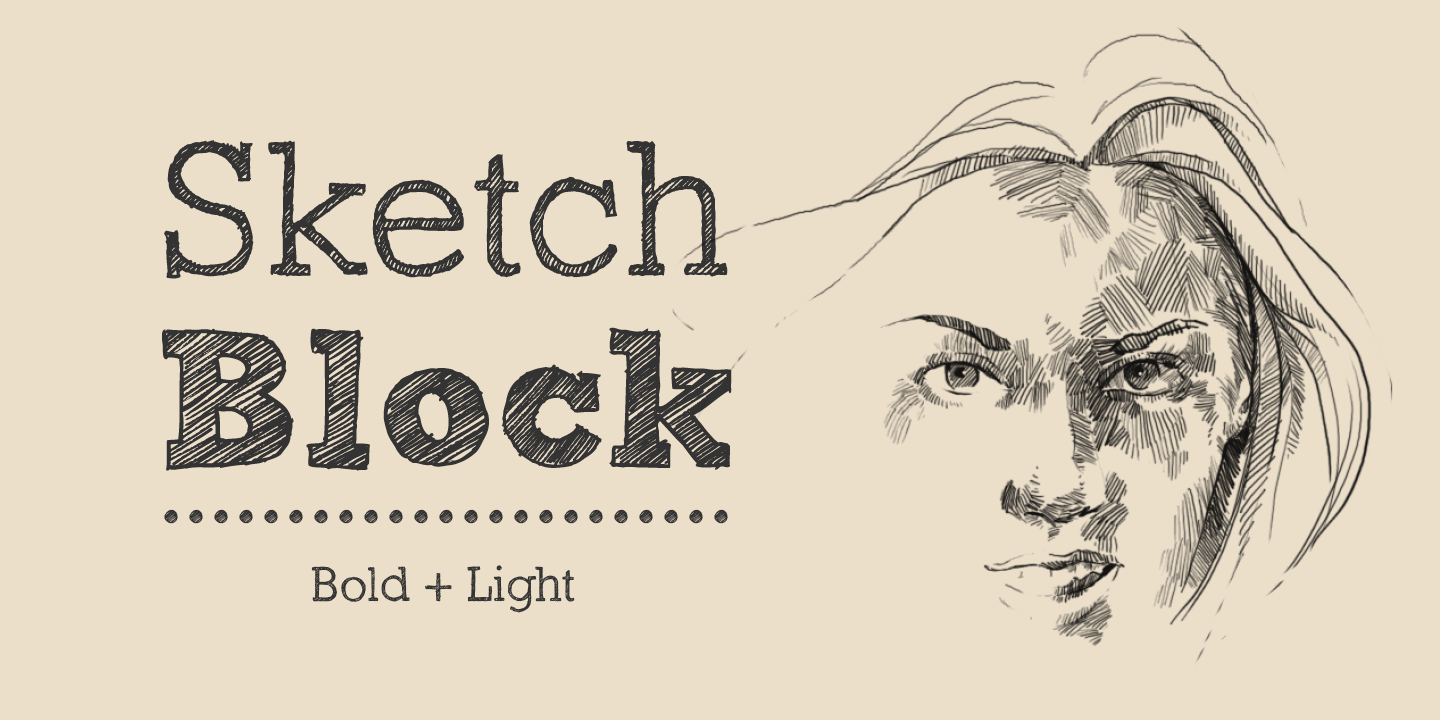
Sketch Block Font is perfect for artistic portfolio designs, creative agency branding, hand-drawn illustration projects, artisanal craft labels, design studio signage, creative workshop materials, architectural concept presentations, artistic event posters, and any design project that requires authentic handcrafted character and creative authenticity.
What makes Sketch Block Font so exciting is its remarkable ability to capture the raw creative energy and authentic artistic process through letterforms that feel genuinely hand-sketched by talented artists in their creative flow. This font embodies the essence of artistic expression with its organic, hand-drawn character shapes that preserve the spontaneity and human touch of traditional sketching techniques. The carefully crafted characters feature authentic drawing variations and artistic imperfections that communicate creativity, originality, and genuine artistic passion, creating the perfect typography solution for projects that celebrate the beauty of handmade artistry and creative authenticity.
The Sketch Block Font family typically includes regular weight variations with comprehensive character sets featuring uppercase and lowercase letters, numerals, punctuation marks, and artistic design elements. Some versions may offer additional stylistic alternates and hand-drawn variations that provide designers with creative options for building authentic, artisanal layouts with genuine artistic appeal and handcrafted sophistication.
Sketch Block Font Free Download has become increasingly popular among artists, creative professionals, and design studios who specialize in handcrafted, authentic visual communications. This distinctive typeface excels in both digital and print applications where artistic authenticity and creative character are essential for connecting with audiences who appreciate genuine artistic expression and handmade quality.
The font's sketched design makes it particularly effective for art galleries, creative studios, handmade product brands, and artistic organizations that need to communicate creativity and authentic artistic heritage. Its hand-drawn character shapes and excellent artistic appeal ensure professional results across various media formats while maintaining genuine handcrafted charm.
Designers choose Sketch Block Font for its ability to instantly add authentic artistic character and creative credibility to any project while maintaining professional functionality for commercial applications. The font's handcrafted construction works beautifully on everything from artistic portfolios to creative brand identities.
Whether you're developing artistic brand materials, creative studio communications, handmade product designs, or authentic craft promotions, Sketch Block Font delivers the perfect fusion of artistic authenticity and professional design that celebrates the beauty of handcrafted creativity and genuine artistic expression.